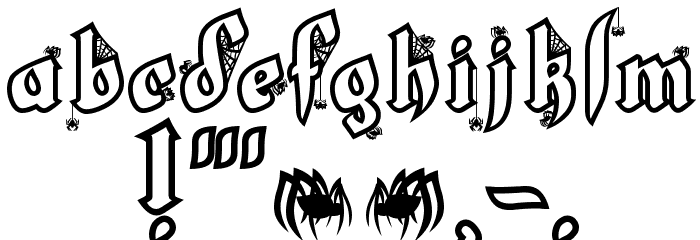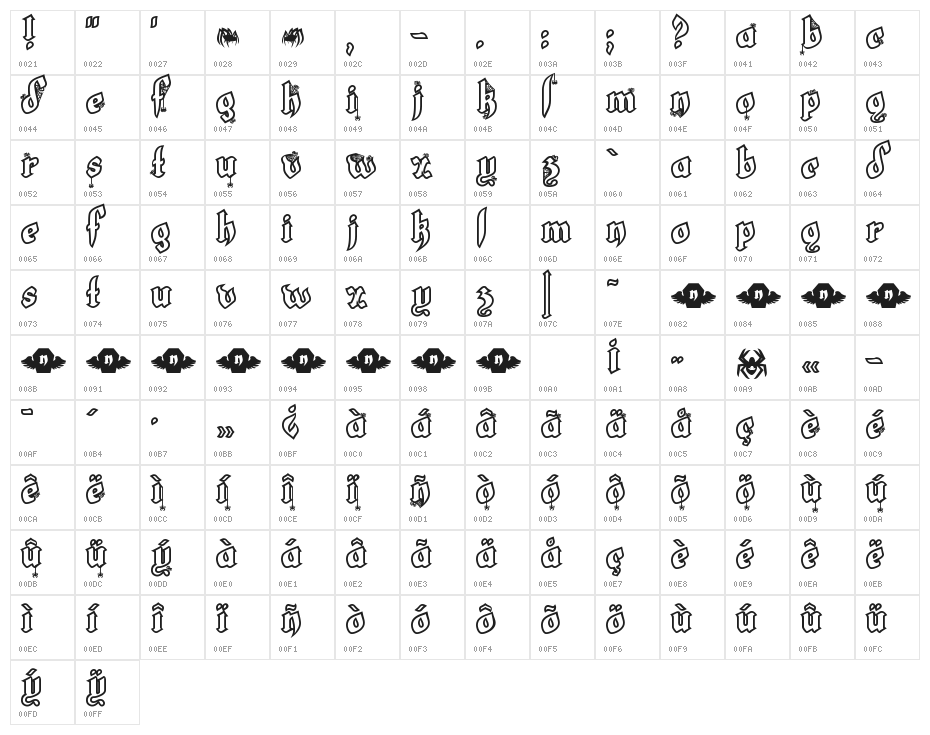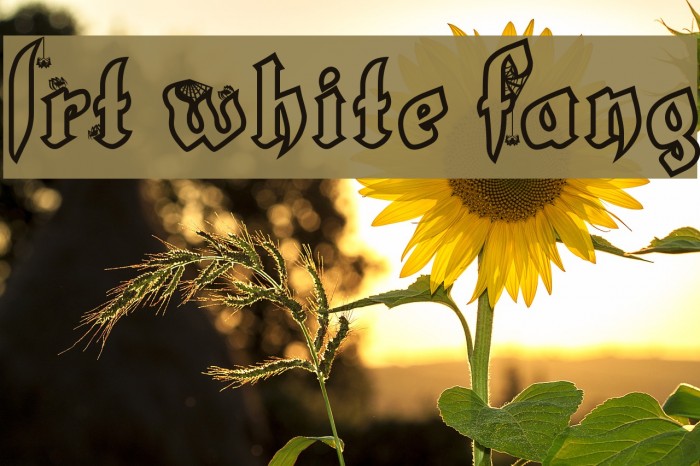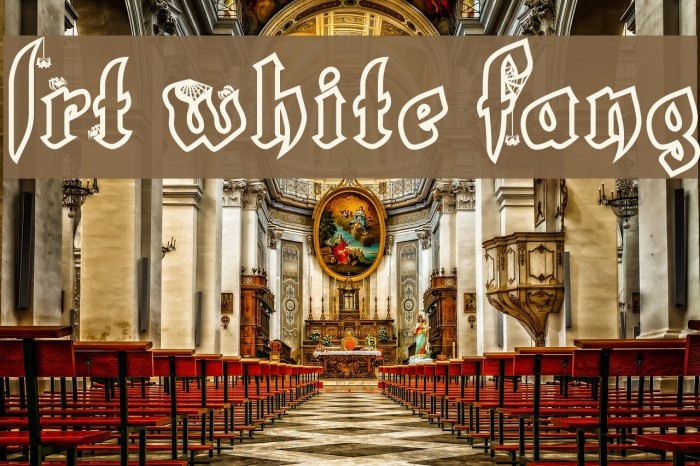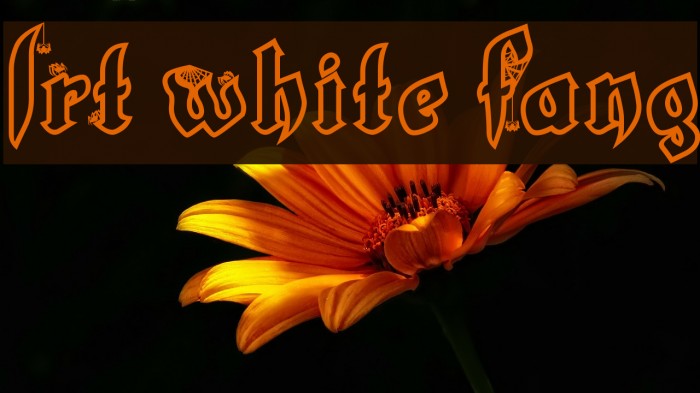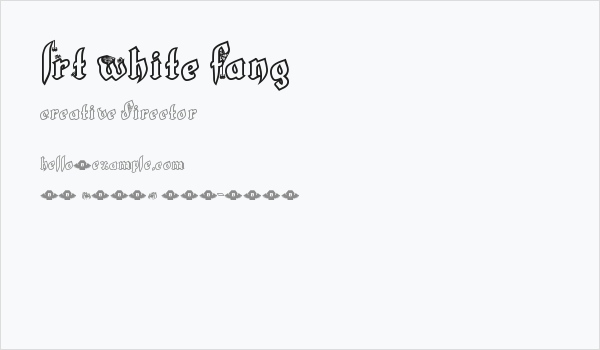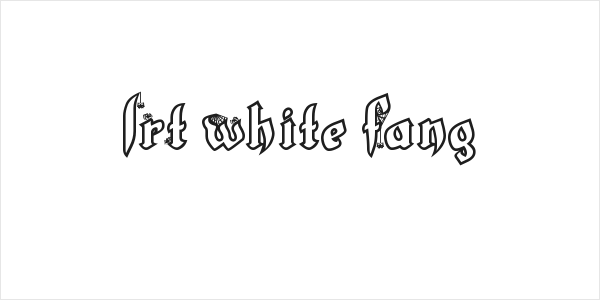
LRT White Fang Font
LRT White Fang Description
This font features a gothic, decorative style with intricate details such as spider webs and hanging spiders integrated into the letterforms. The characters have a bold, angular appearance with sharp edges and pointed serifs, giving it a dramatic and eerie look. The uppercase and lowercase letters maintain a consistent style, with the special characters echoing the same thematic elements. The font's unique embellishments make it particularly suitable for Halloween-themed projects or any design requiring a spooky, mysterious vibe.
| Overall Style | Gothic, Decorative |
| Use Case | Headlines, Logos, Themed Events |
| Proposed Projects | Ideal for Halloween invitations, horror movie posters, themed event flyers, and decorative signage. |